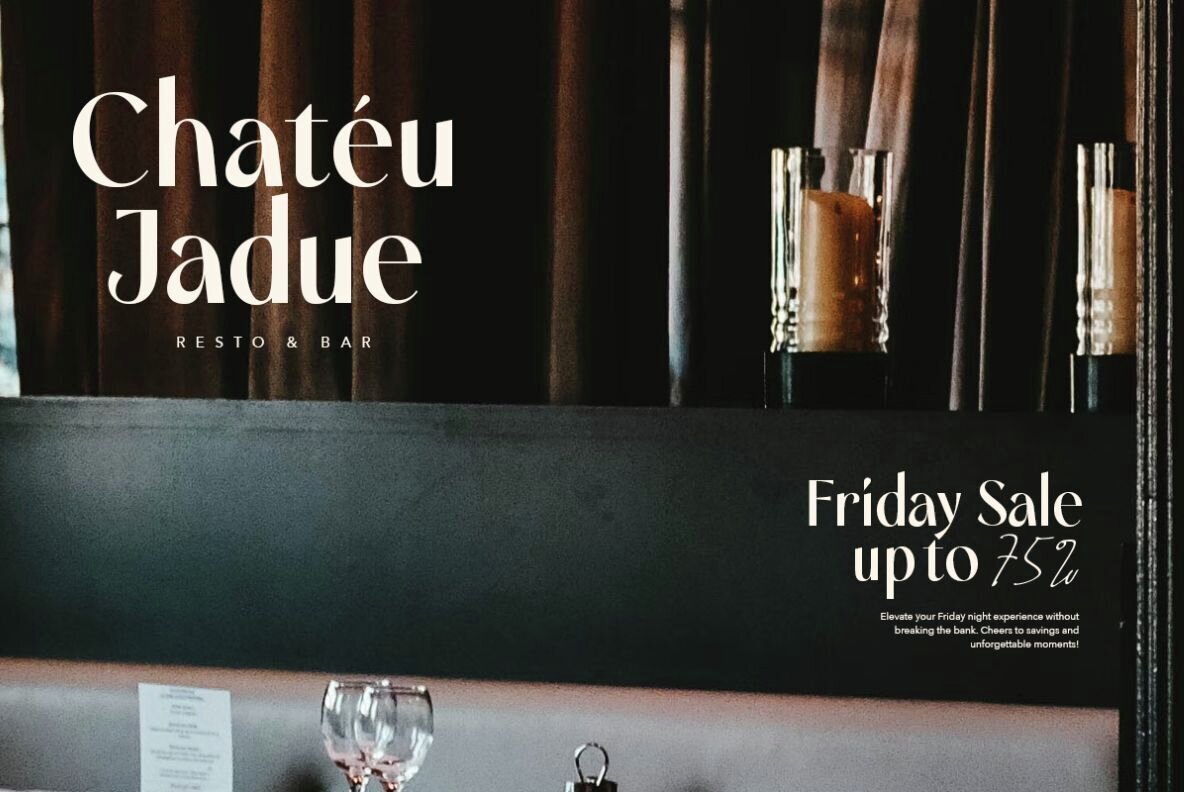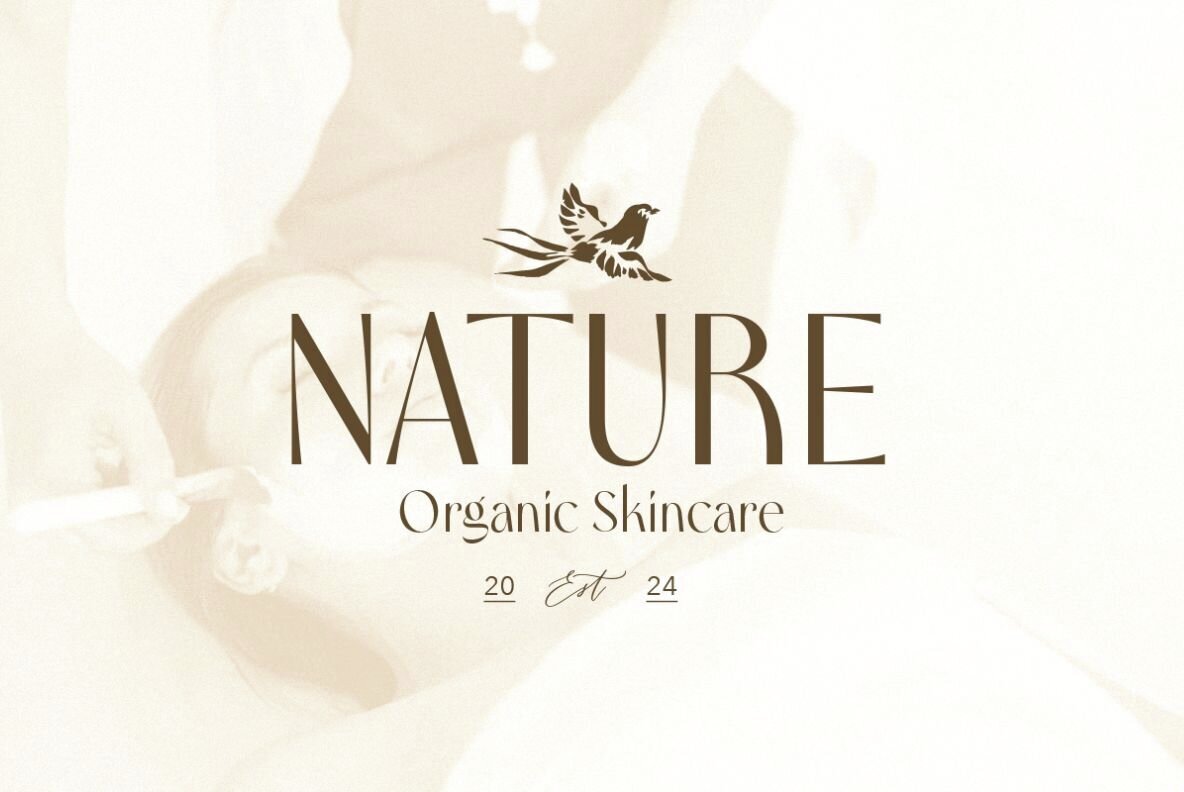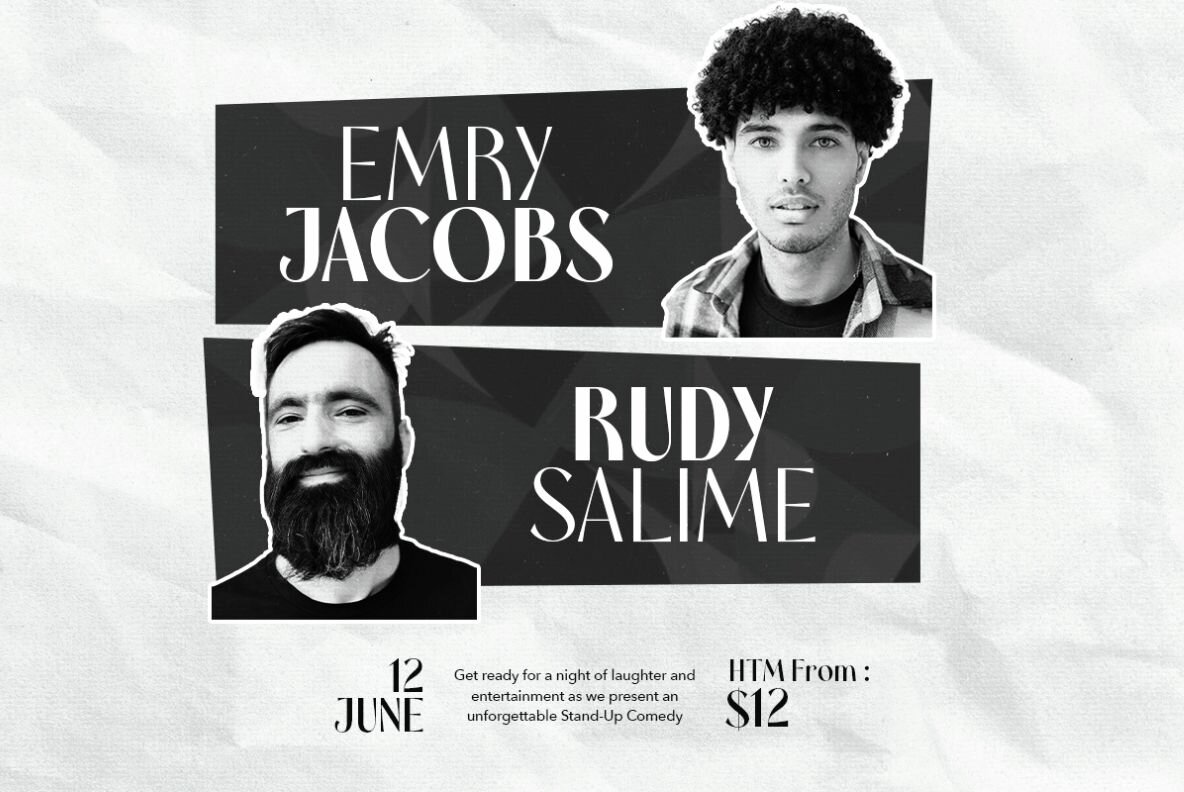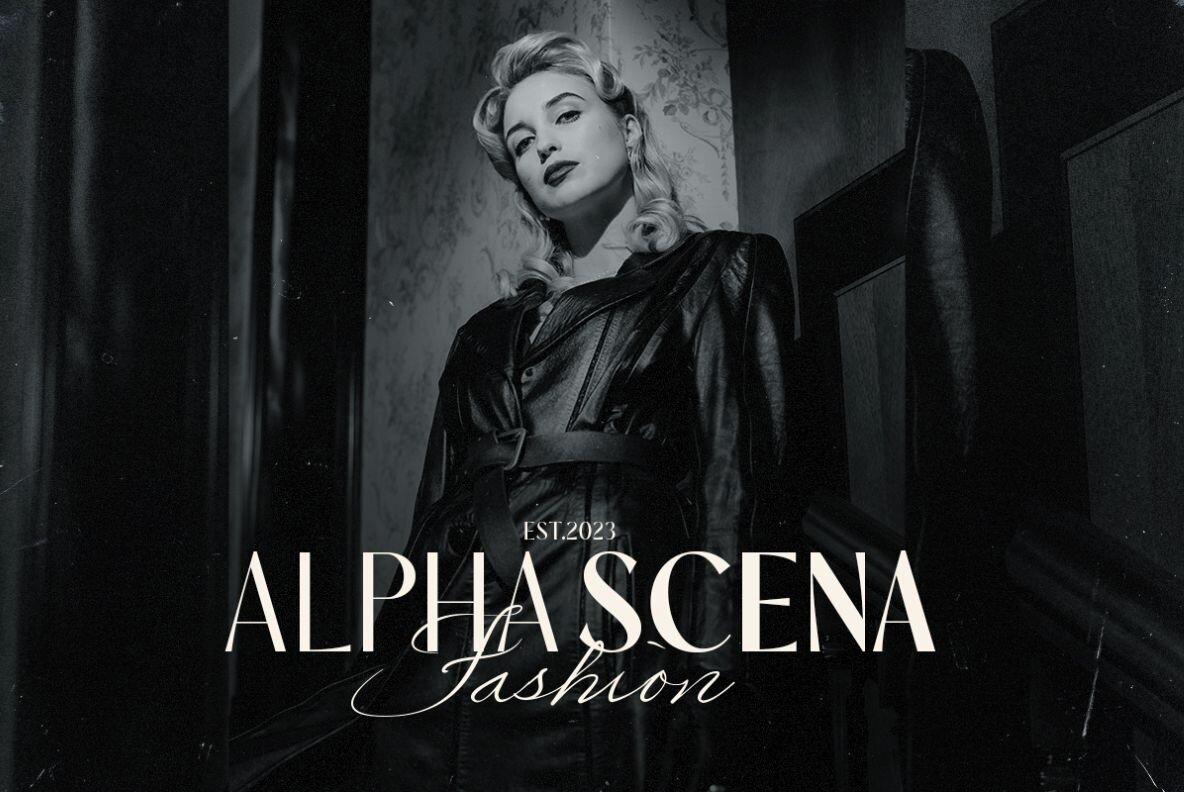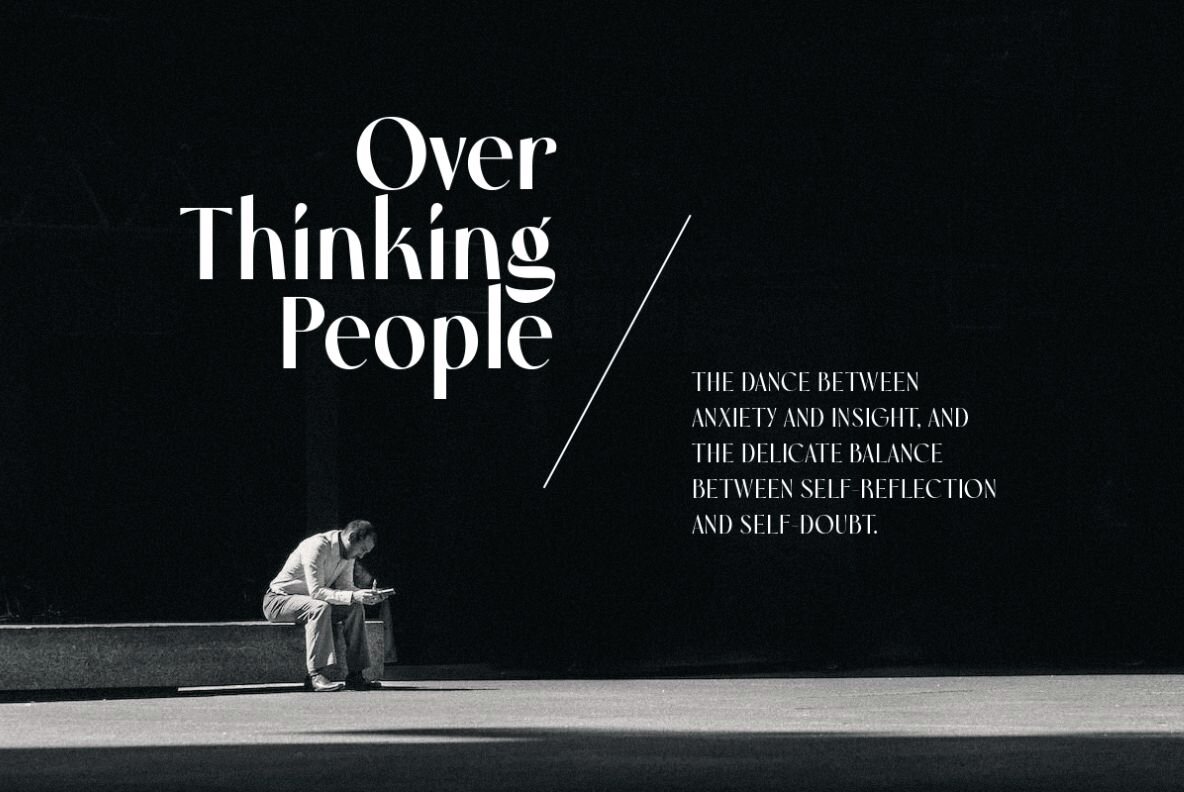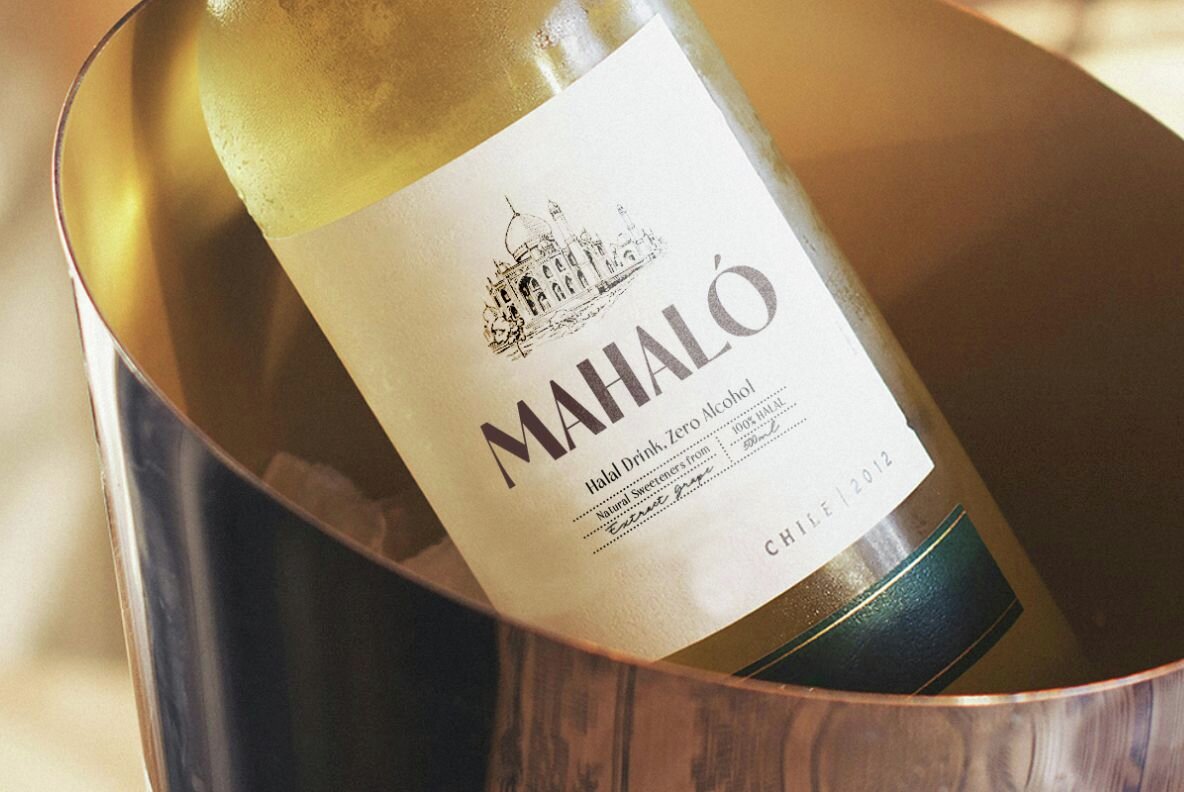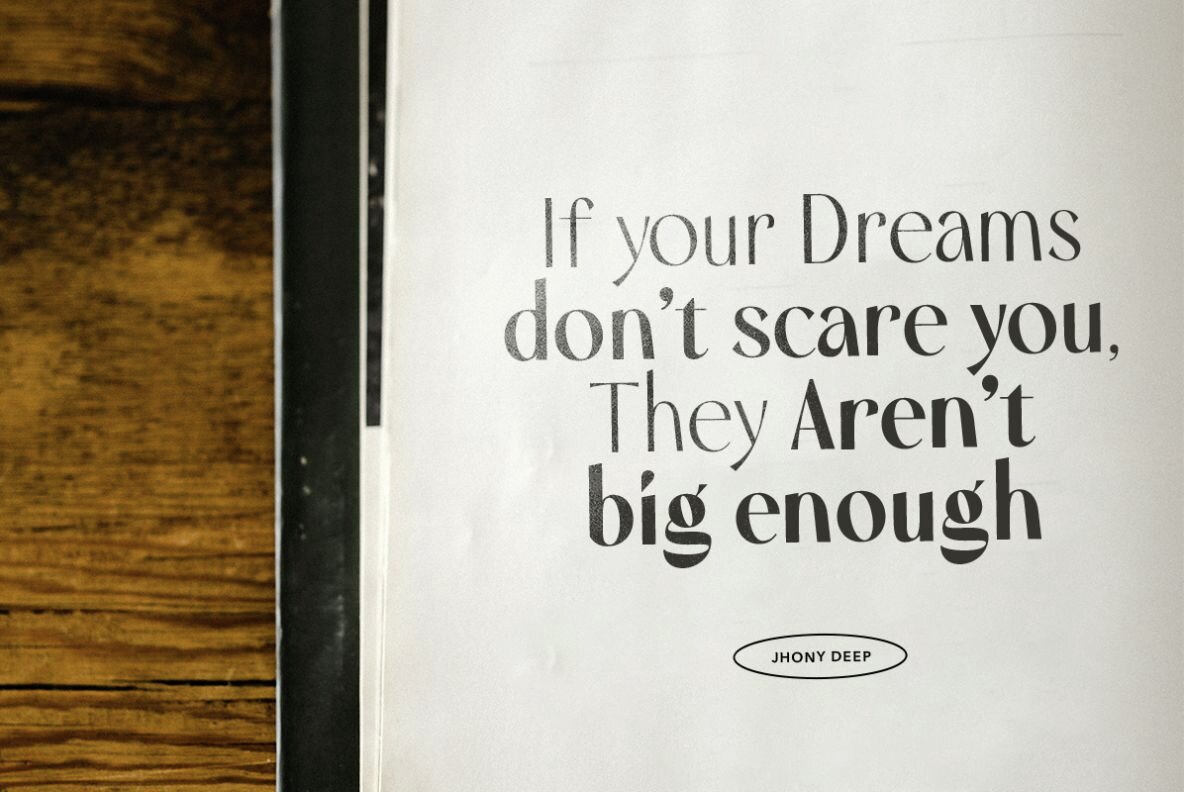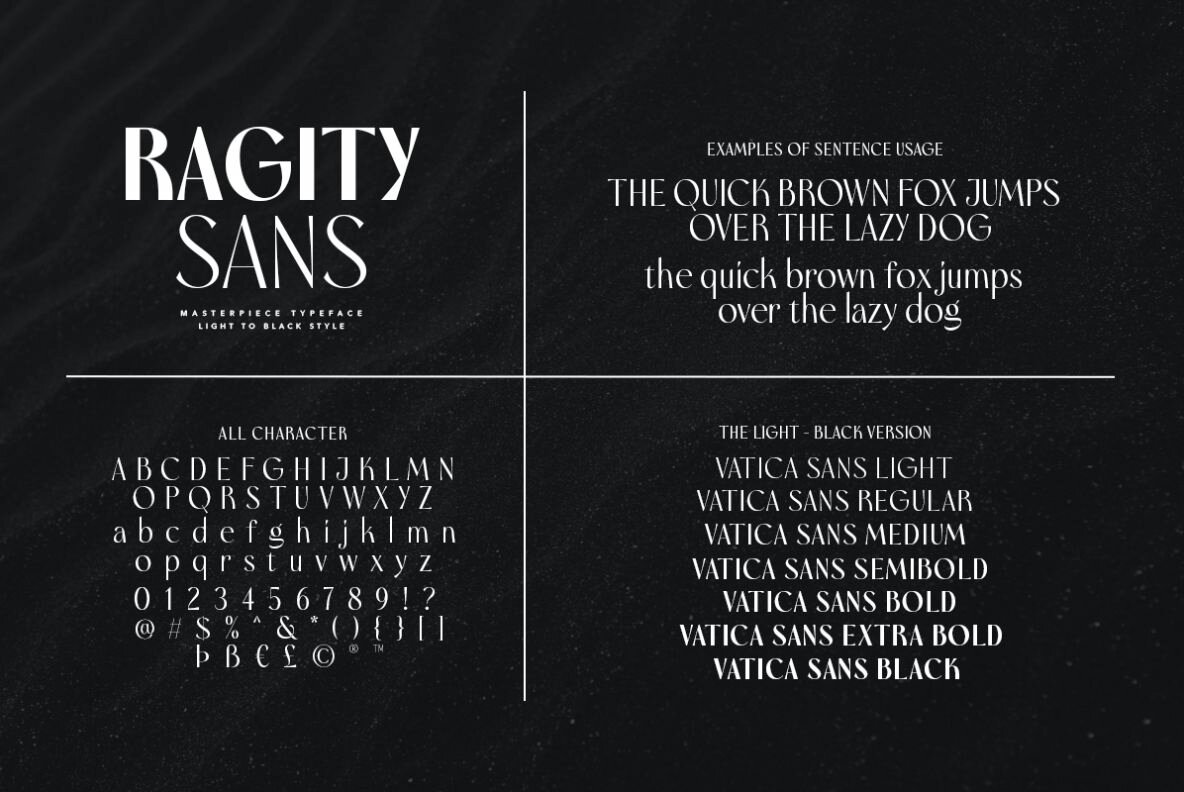
Ragity Font
Ragity is a stylish, modern sans-serif font characterized by its minimalist looks and beautiful details, making it versatile for various applications. Ideal for wedding invitations, logos, and quotes, Ragity also excels in branding projects. It offers seven weights, from Light to Black, allowing you to choose the perfect level of boldness for your design needs.
Additionally, Ragity supports multiple languages, ensuring compatibility with a wide range of projects and audiences. This combination of flexibility, elegance, and linguistic support makes Ragity a valuable addition to any designer's toolkit.